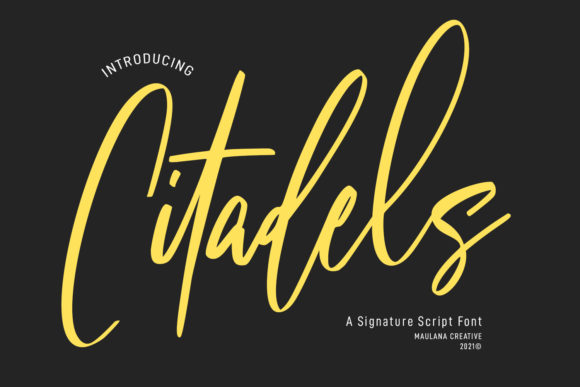
Introducing Citadels Signature Script Font, the ultimate choice for those seeking the Best Font For White Background! Crafted with love by the talented Maulana Creative, this font will effortlessly elevate your designs and captivate your audience.
With its charming and playful characters, Citadels Signature Script Font brings a touch of elegance and whimsy to any project. Each letter seems to dance along the baseline, creating a unique and captivating visual experience. Say goodbye to boring and predictable fonts, and embrace the beauty of creativity!
Why settle for ordinary when you can have extraordinary? This font is the perfect companion for all your creative endeavors. Whether you're designing wedding invitations, branding materials, or eye-catching social media posts, Citadels Signature Script Font will make your work shine bright like a diamond.
No matter the occasion, Citadels Signature Script Font adds a touch of sophistication and uniqueness to your designs. Its versatility allows it to seamlessly blend with any style or theme, ensuring that your message is delivered with utmost elegance and impact. Stand out from the crowd and leave a lasting impression with this remarkable font.
Don't miss out on the opportunity to enhance your designs with the Best Font For White Background. Embrace the charm, elegance, and playfulness of Citadels Signature Script Font. Get ready to create stunning visuals that will captivate and inspire!